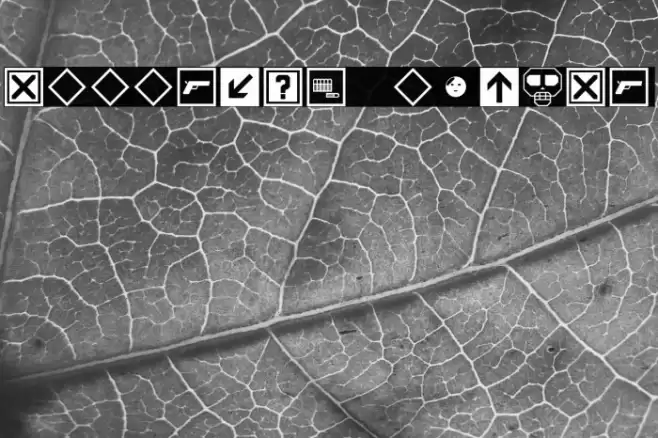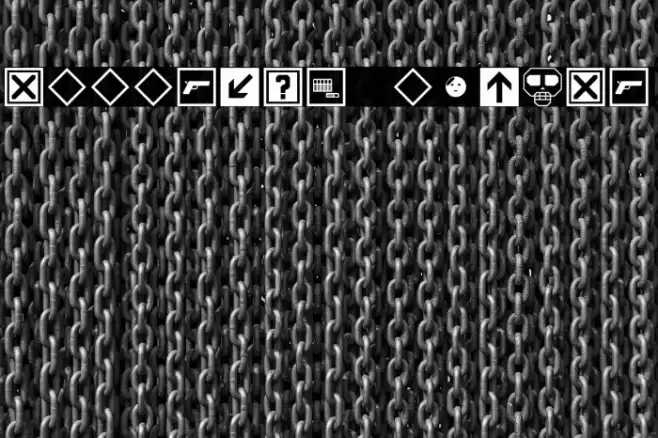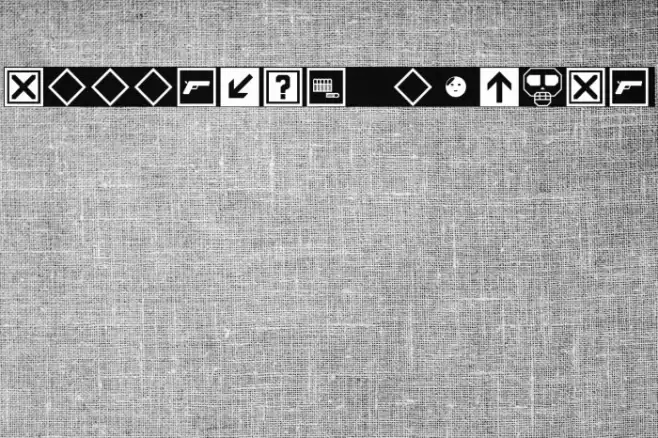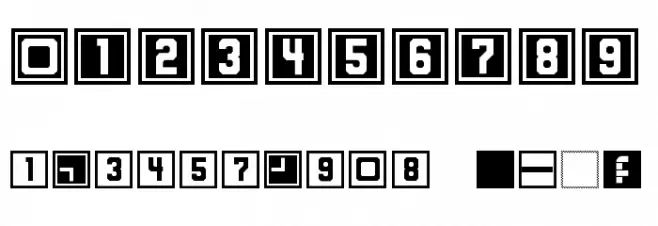
This font is a unique collection of symbols and icons, each enclosed within a square or circular frame. The characters are bold and geometric, featuring a variety of designs such as arrows, skulls, and abstract shapes. The numbers are prominently displayed within squares, giving them a distinct, blocky appearance. The overall style is reminiscent of video game graphics or digital interfaces, offering a modern and playful aesthetic. The symbols are highly stylized, making them suitable for creative projects that require a distinctive visual language.
A bold, geometric symbol font with a modern, playful aesthetic from Regular fonts.
- Proposed Projects: Ideal for video game design, digital interfaces, creative posters, and graphic design projects that require unique symbols.
- Use Case: Logos, Icons, Digital Interfaces